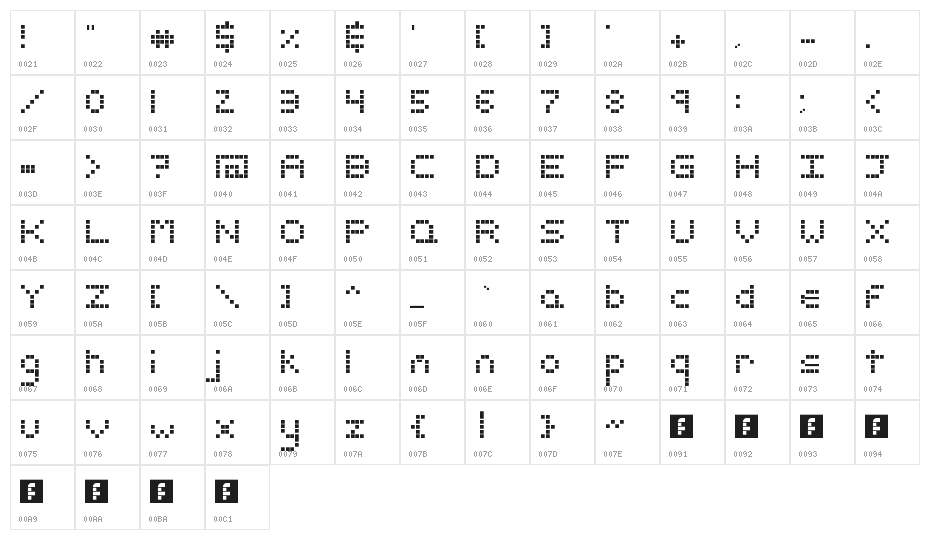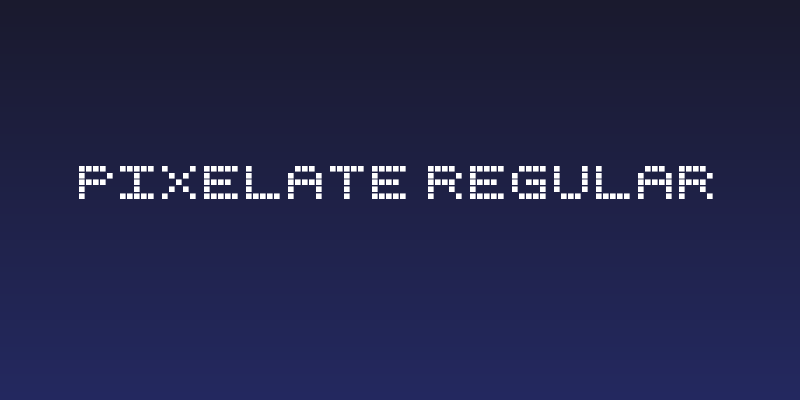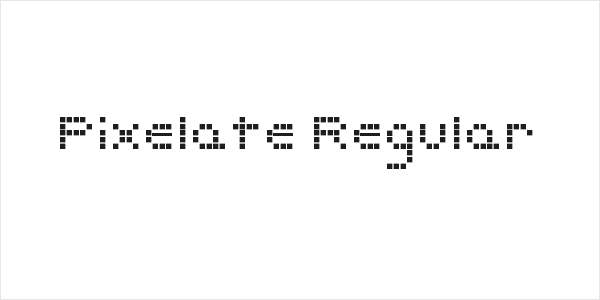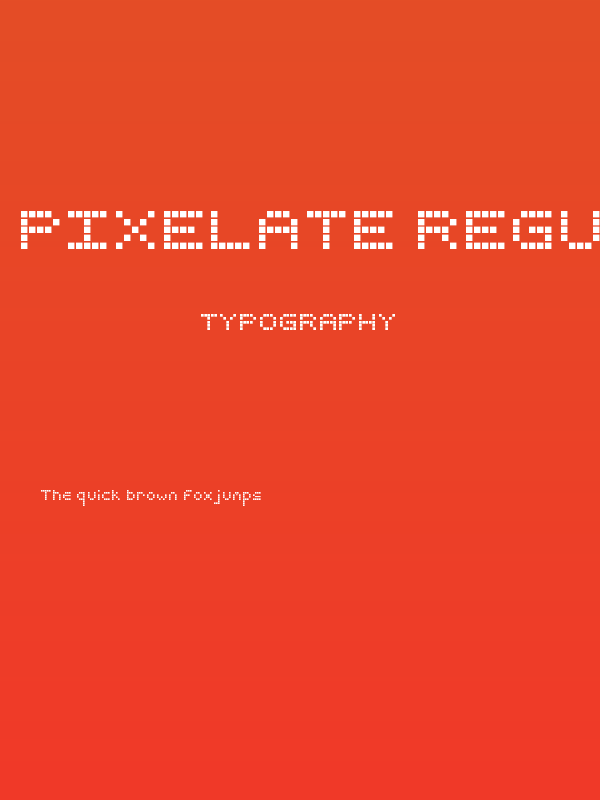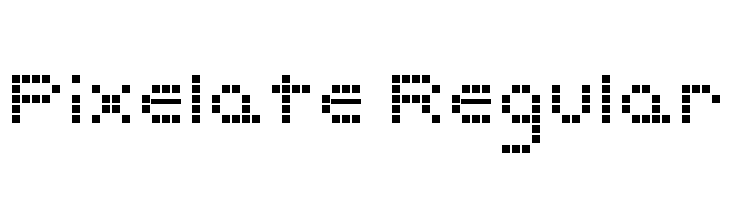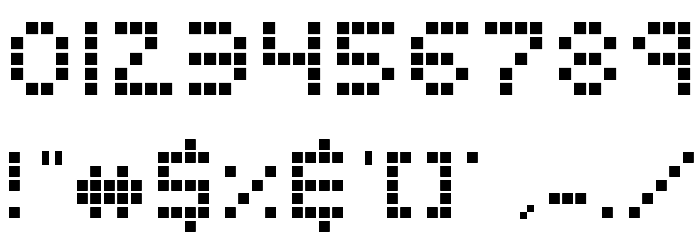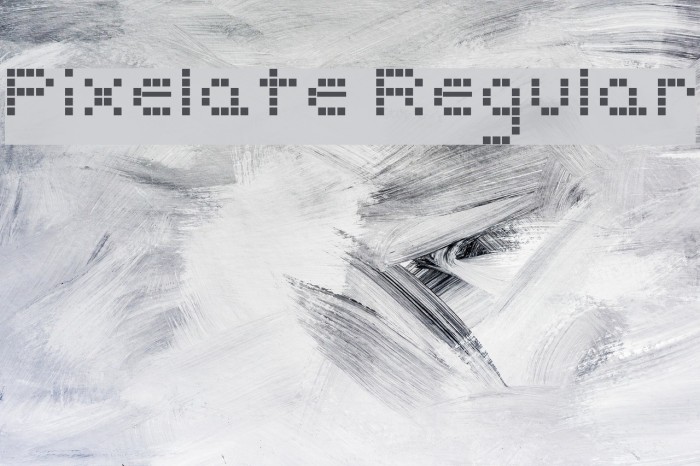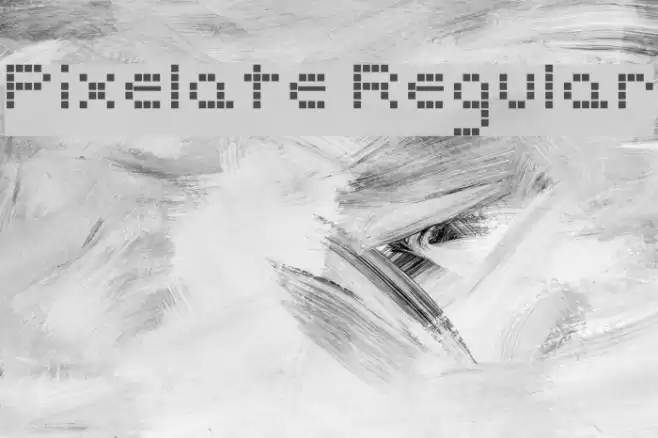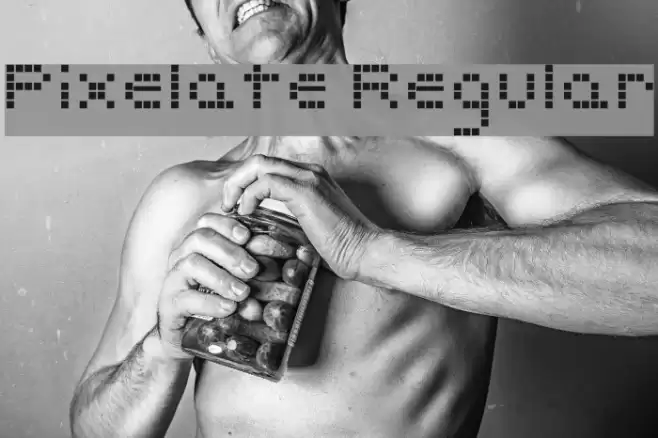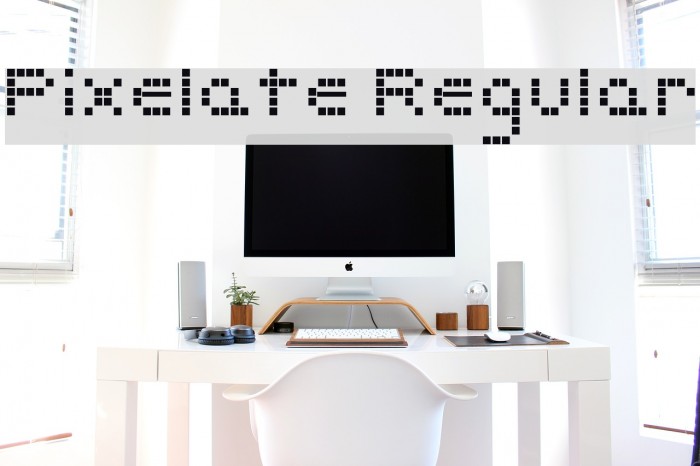
Pixelate Regular Font
| Cas d'utilisation | Headlines, Logos, Digital Art |
| Projets proposés | Ideal for retro video game graphics, digital art projects, tech-themed posters, and any design that requires a vintage digital aesthetic. |